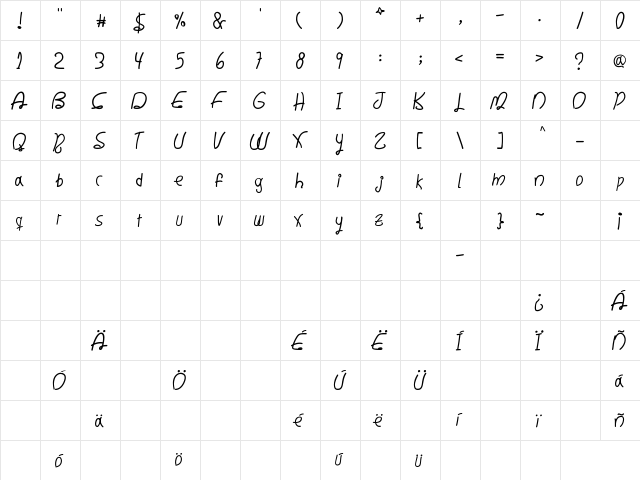
Writing Memories Regular
| Foundry | LJ-Design Studios |
| Designer | Luis Jaramillo |
Design Context for Writing Memories Typeface
Writing Memories is a composed and adaptable typeface that performs quietly and consistently across a wide range of design contexts.